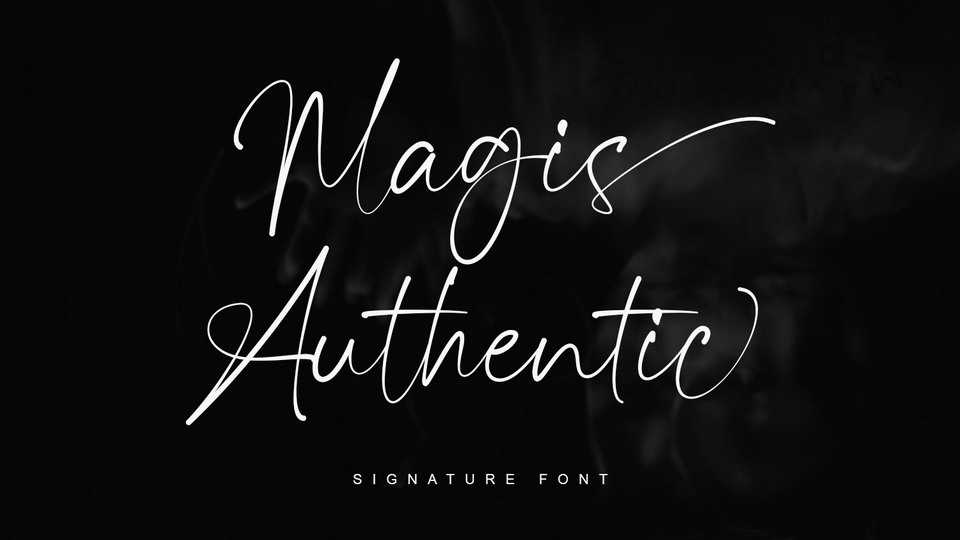
Magis Authentic Script Font › Fontesk – Download Grátis
Download Magis Authentic font, a signature style handwritten typeface, with a natural and stylish flow. Magis Authentic font is perfect for many different project such as logos & branding, invitation, wedding design, social media posts and more.